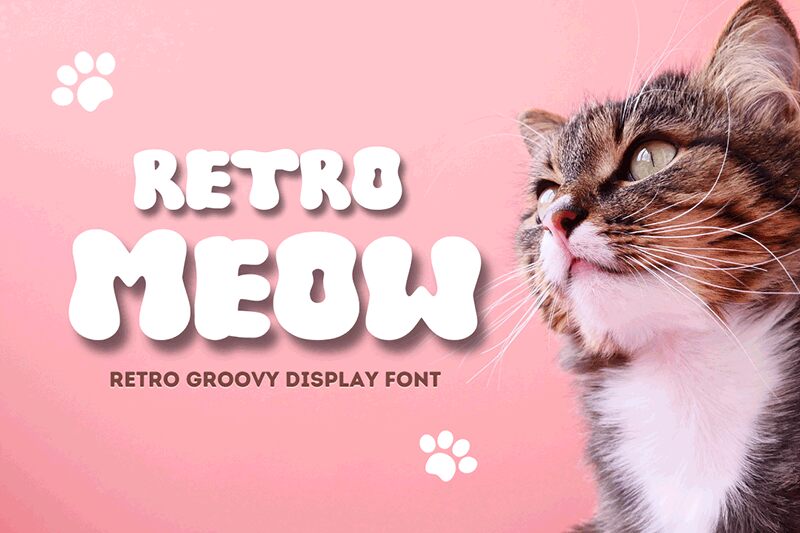
Retro Meow font by Minimalist Eyes is chunky, playful, and bold to make the statement you’ve always dreamed of. Although it is a modern design, its smooth curves hold a lot of vintage appeal especially with the font’s 1970s influence. Retro Meow is groovy in style and mainly built for display purposes even though it looks quite legible in lengthy texts.
Consider using this free groovy font in poster designs, websites and social media cover images.